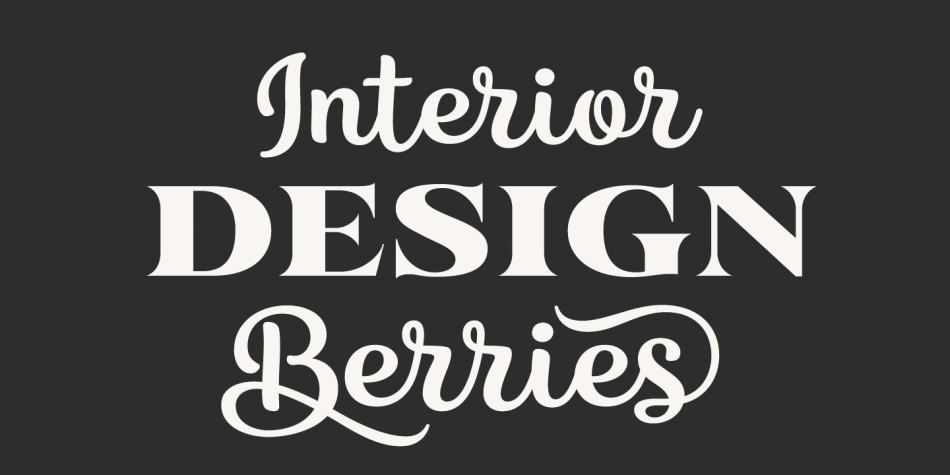
Designed by Veneta Rangelova, Karlie is a dingbat, script and serif font family. This typeface has eight styles and was published by DearType.
Karlie is a neat combination of a friendly script and a modern all-caps serif in five widths.
The font family is extremely versatile and is perfect for high-end logotypes and magazine headlines, let alone greeting cards, invitations, posters, book covers, ads and the various web and screen usages.
The combination of two different font styles (script and serif) also performs very well on product packaging.
As for the technical side, the Karlie family has extensive language support and includes a handful of ligatures, stylistic sets and swashes that add visual interest to every letter.
We’ve also included some extras with ready-made words and symbols for more design freedom.
The Karlie Font Family in a nutshell: - Karlie - a dancing baseline script with connecting letters - Karlie Alt - similar feel to Karlie, but with disconnected letters - Karlie Serif - a set of five serifs with different widths for a different impact - Karlie Extras - a set of additional designs that will add up to the family’s charm.
The overall feel of the family is a combination of casual and sophisticated, thus making it perfect for modern-day applications.